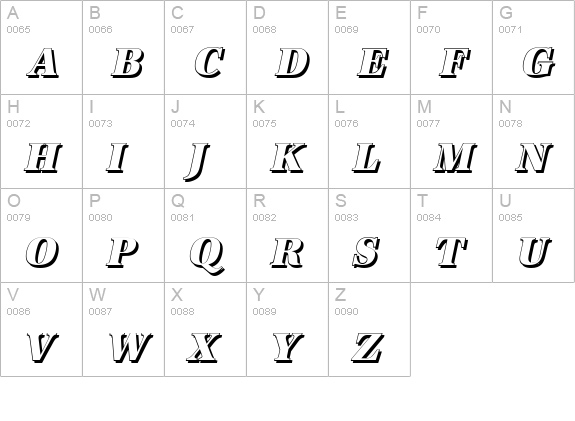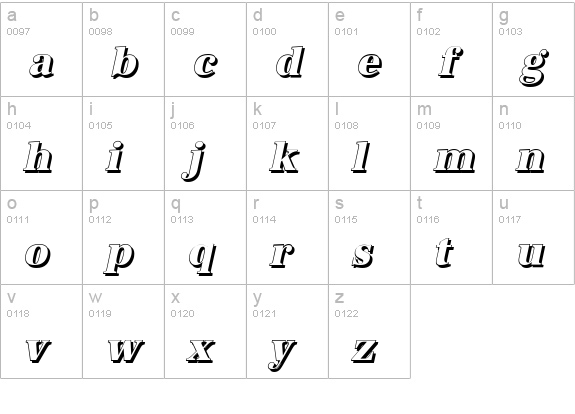
AntiquaSh-Cd-Xbold-Italic is a distinctive, italic variant in the AntiquaSh typeface family \xE2\x80\x94 well suited to design and typography projects.
AntiquaSh-Cd-Xbold-Italic is a bold and stylish font that exudes elegance and sophistication. Its unique italicized design adds a touch of flair to any project, making it perfect for adding a touch of class to your designs. This font is ideal for headlines, titles, and other display purposes where you want to make a statement. The AntiquaSh-Cd-Xbold-Italic font is not only visually striking, but it is also incredibly versatile. Its bold weight ensures that your text will stand out and capture the attention of your audience. Whether you are designing a poster, flyer, or logo, this font is sure to make a bold statement. The best part? AntiquaSh-Cd-Xbold-Italic is available for free download at FontsMarket.com. So you can elevate your designs without breaking the bank. Don't miss out on this fantastic font that will take your projects to the next level. Download AntiquaSh-Cd-Xbold-Italic today and see the difference it can make in your designs.